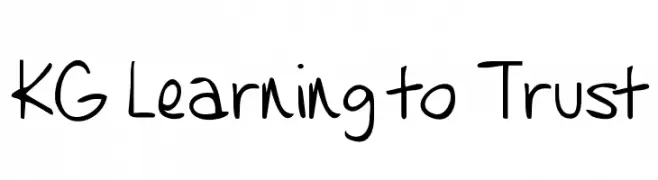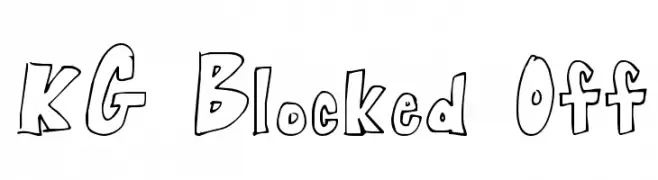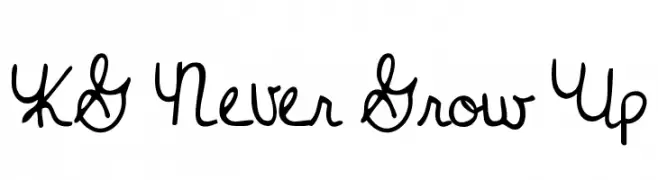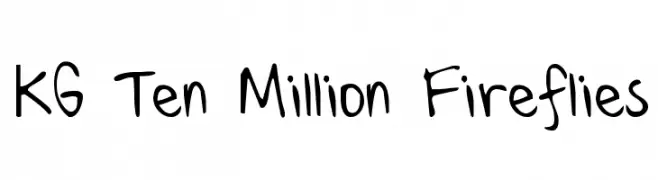
A playful handwritten font with irregular strokes and a whimsical style.
A playful, handwritten font with a casual and whimsical style.
A playful, casual handwritten font with smooth, rounded edges.
A playful, informal handwritten font with irregular, marker-like strokes.
A bold, playful handwritten font with dynamic strokes and a casual style.
A playful handwritten font with smooth, rounded strokes and a friendly appearance.
A playful, handwritten font with bold, rounded strokes and a whimsical style.
A playful, hand-drawn font with bold, irregular strokes.
A playful, handwritten font with a youthful and whimsical style.
A playful, whimsical handwritten font with irregular strokes and a casual vibe.